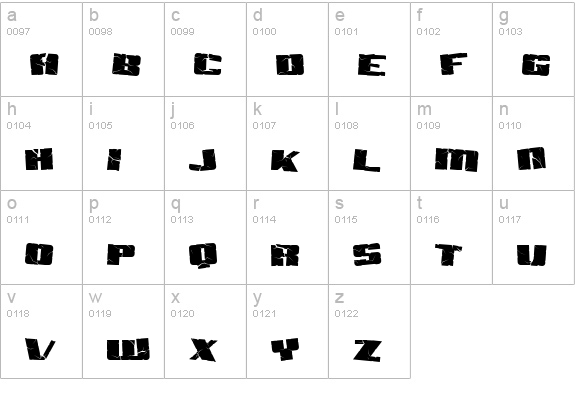
Aftershock Debris font is a stunning and dynamic display typeface that exudes energy and impact. With its jagged edges and distressed appearance, this font captures the chaotic aftermath of a powerful seismic event. Perfect for adding a sense of urgency and drama to your designs, Aftershock Debris is versatile and eye-catching. What sets Aftershock Debris font apart is that it is available for free download at FontsMarket.com. This means you can easily access this unique and powerful font to enhance your projects without any cost. Whether you're working on posters, flyers, or digital graphics, Aftershock Debris font will make a bold statement and leave a lasting impression. Download this font today and unleash its raw energy in your creations!